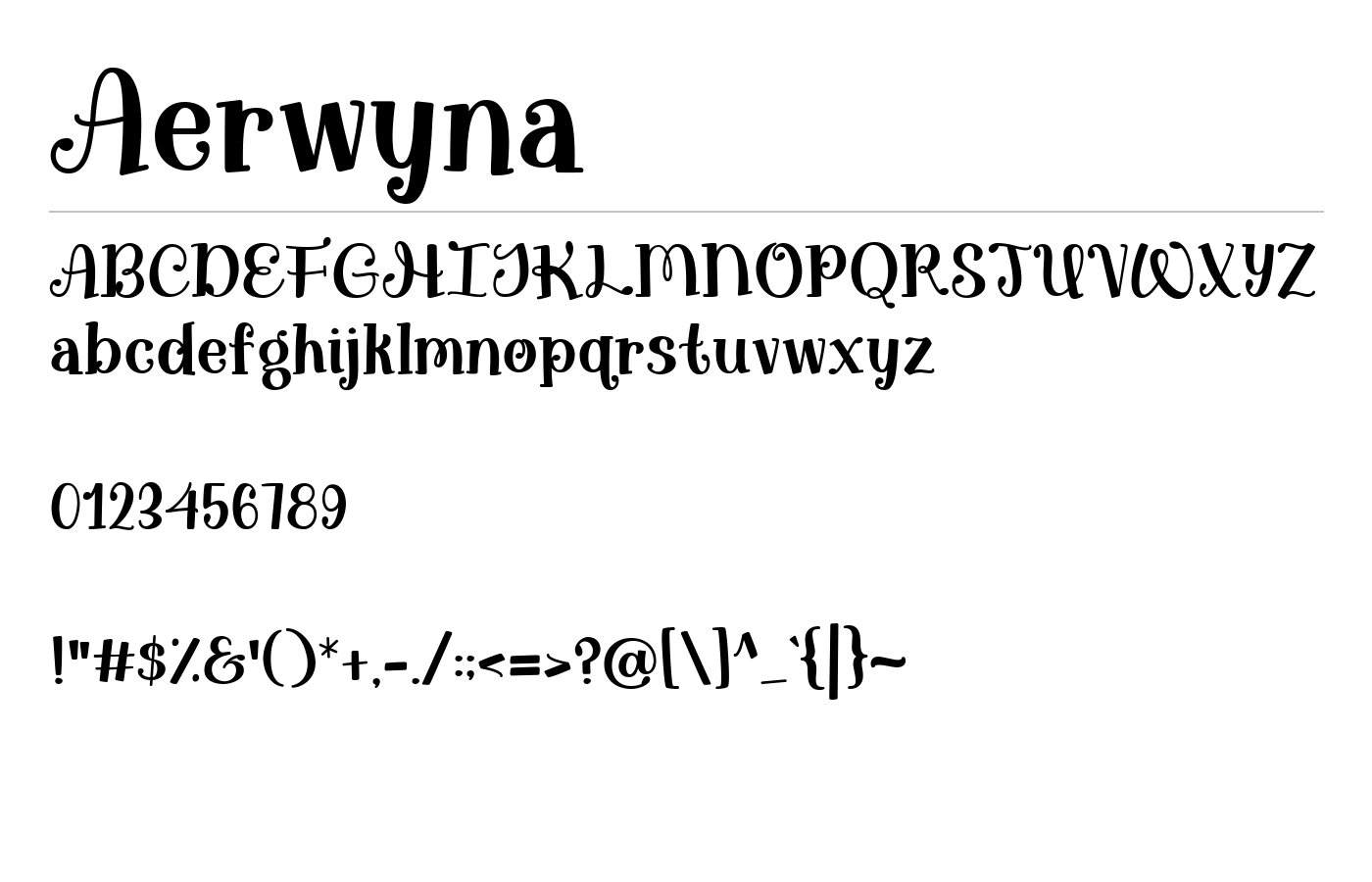
Aerwyna is a charming serif font with playful, curly terminals and moderate stroke contrast that give it a whimsical yet structured feel. Its unique letterforms and lively curves make it ideal for creative projects, branding, and headlines where a touch of personality and elegance are desired. This font works well for invitations, logos, and editorial designs that want to stand out with a friendly and artistic vibe.
Aerwyna Font